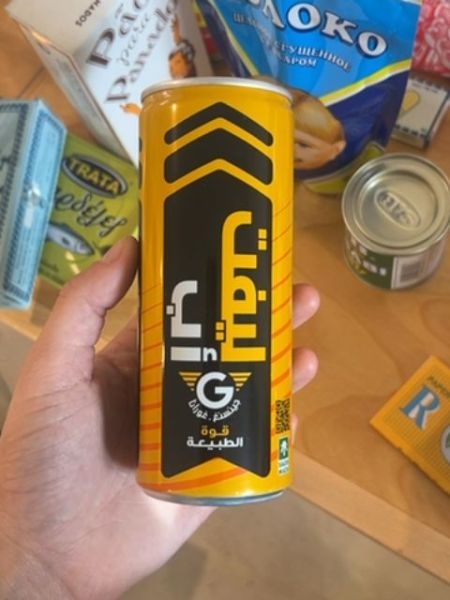
G Coffee
Instant coffee beverage designed for a quick caffeine boost.
Egypt
The typography on the can uses a bold, contemporary Arabic script, complemented by a stylized, geometric sans-serif font for the brand logo. The font choices are strong and assertive, reinforcing the energy and dynamism of the product.
The product is packaged in a sleek, cylindrical can with a vibrant yellow and black color scheme. The design features bold, geometric shapes that draw the eye, providing a modern and dynamic look.